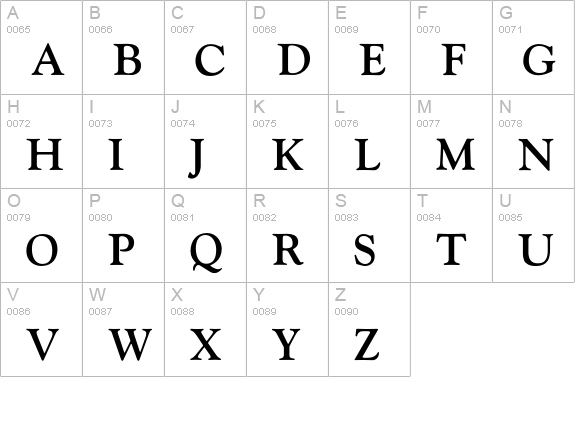
GoudyBold Font Details
GoudyBold font is a classic and timeless typeface that commands attention with its bold and strong characteristics. Its elegant and sophisticated design makes it perfect for a wide range of projects, from branding to editorial design. The GoudyBold font exudes confidence and professionalism, making it a top choice for designers looking to make a statement. What's even better is that GoudyBold font is available for free download at FontsMarket.com. This means you can easily access this premium font without any cost, allowing you to enhance your projects with its distinctive style. Don't miss out on the opportunity to elevate your designs with GoudyBold font, now just a click away at FontsMarket.com.